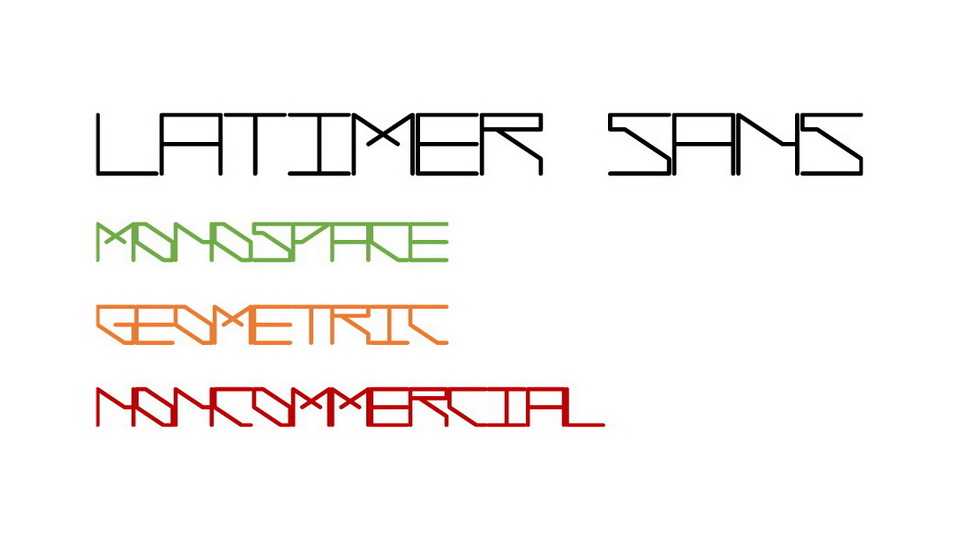
Download Latimer Sans font, a nonsensical geometric font with interesting kerning behaviours. Latimer Sans is a monospaced grid-based typeface used in some FWPhys Sci-Fi renders.